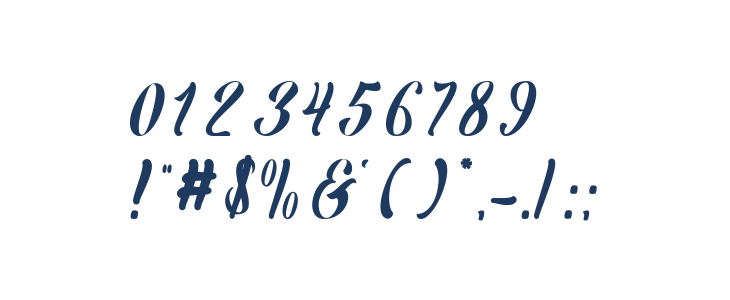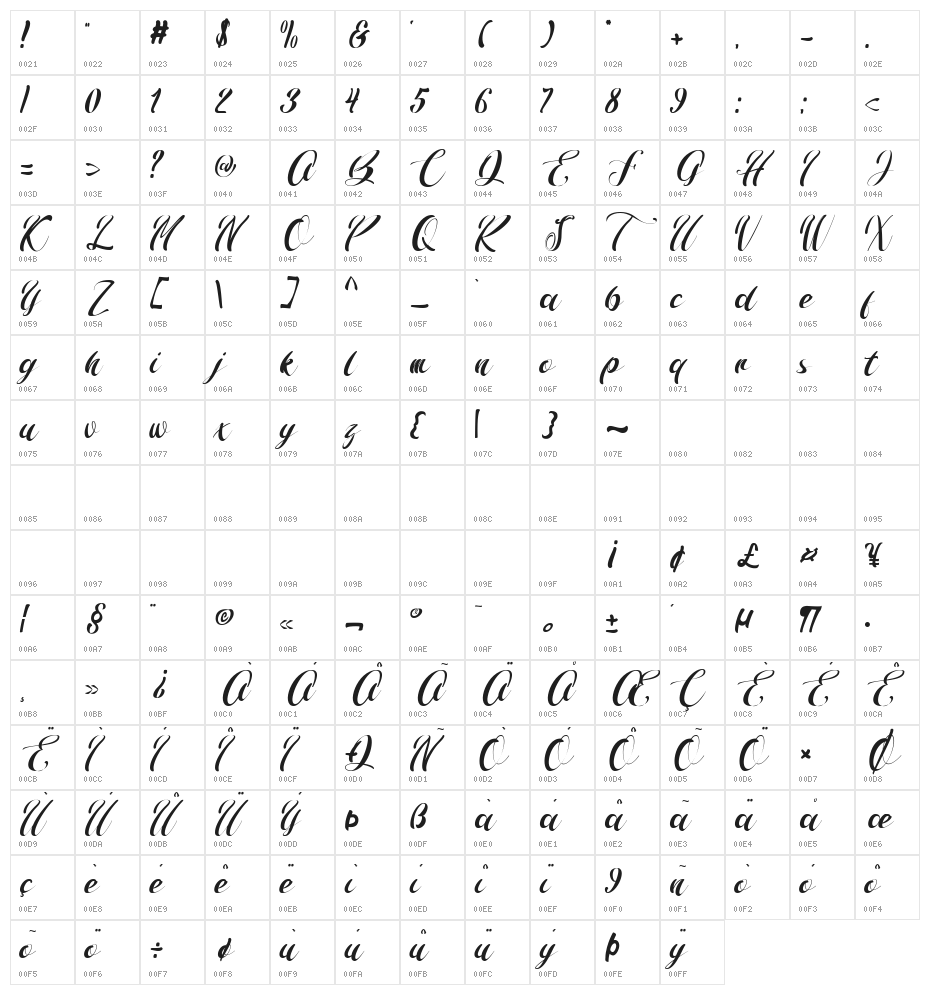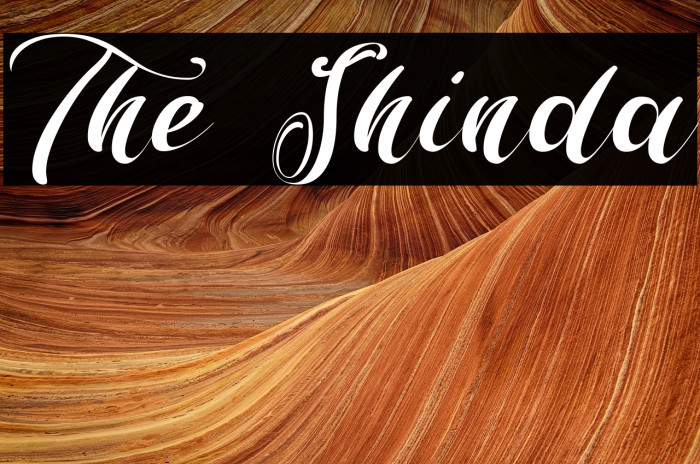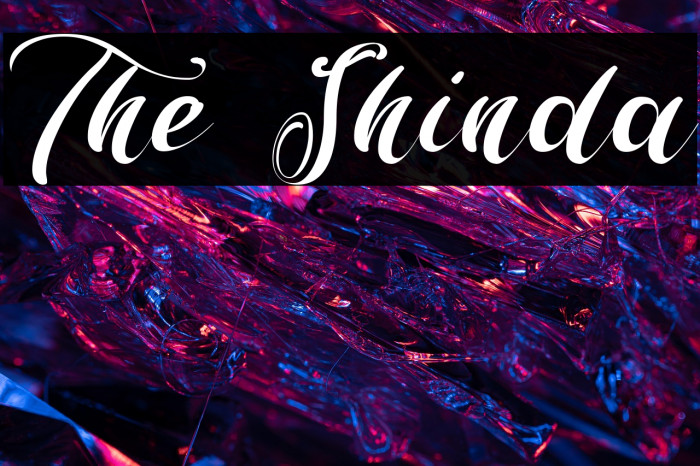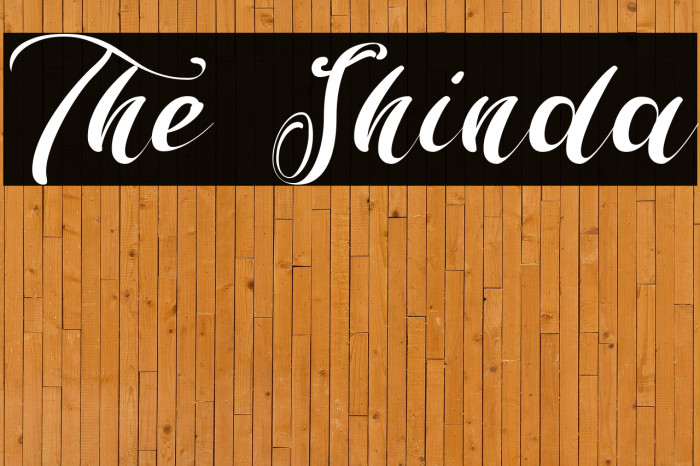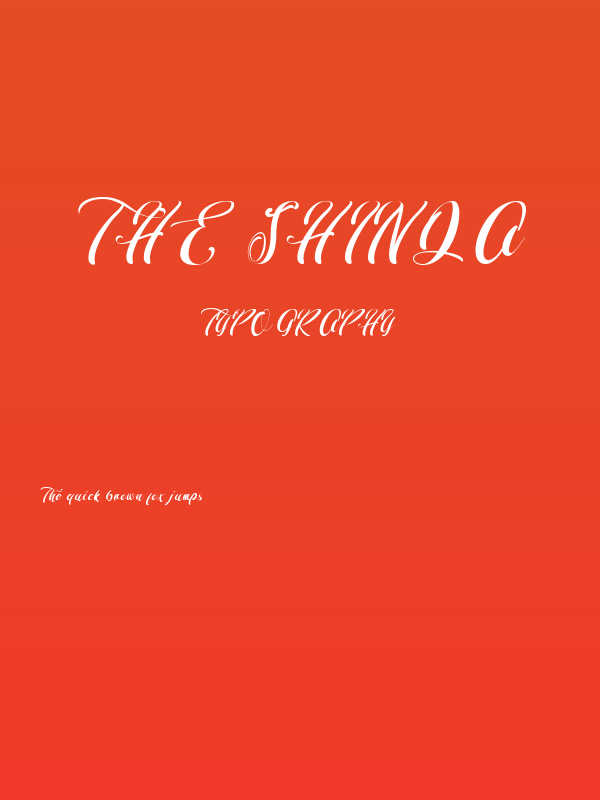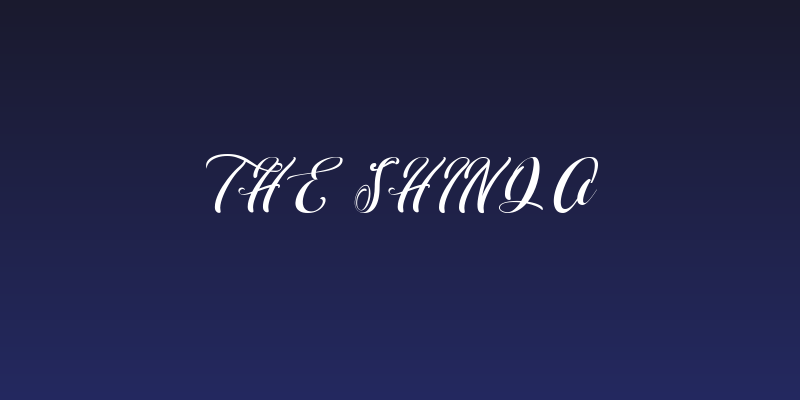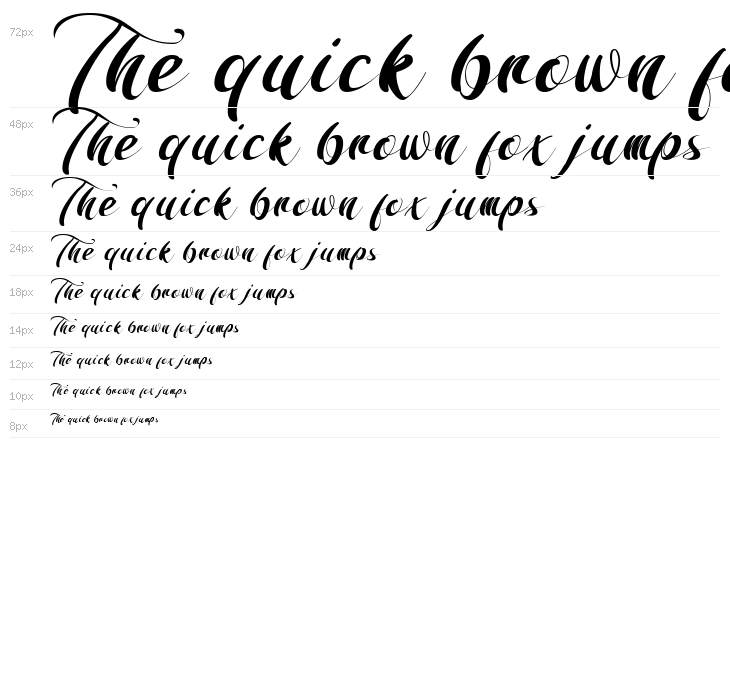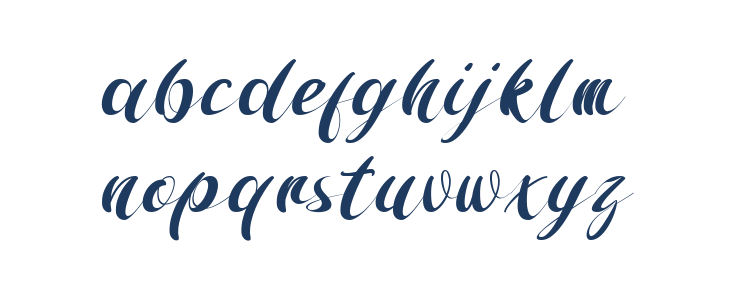
The Shinda Font
The Shinda Description
This elegant script font features a flowing, cursive style with high contrast between thick and thin strokes. The uppercase letters are ornate and sweeping, while the lowercase letters maintain a consistent, graceful flow. The numerals and special characters are designed with the same attention to detail, offering a cohesive look across all glyphs. The font's overall appearance is sophisticated and stylish, making it suitable for formal invitations, branding, and decorative purposes. Its artistic flair and fluidity give it a dynamic presence, perfect for projects that require a touch of elegance.
| Overall Style | Elegant |
| Use Case | Headlines, Logos, Invitations |
| Proposed Projects | Ideal for wedding invitations, luxury branding, greeting cards, and decorative signage. |